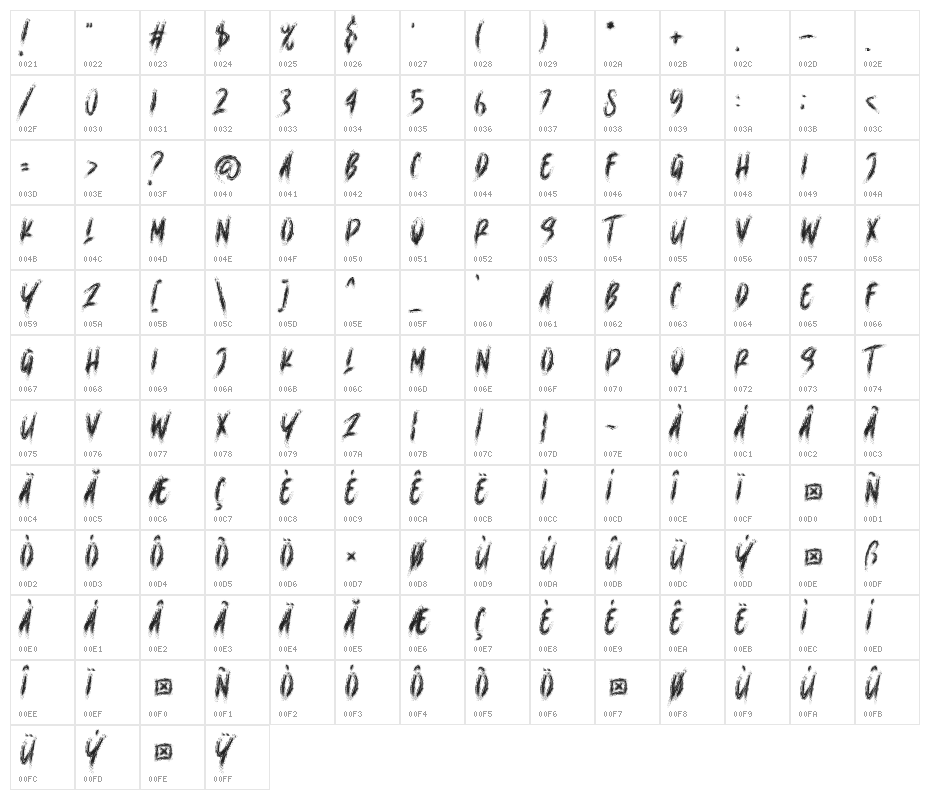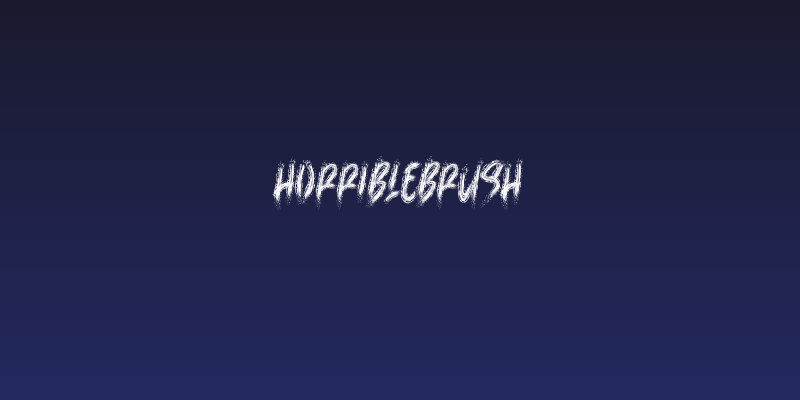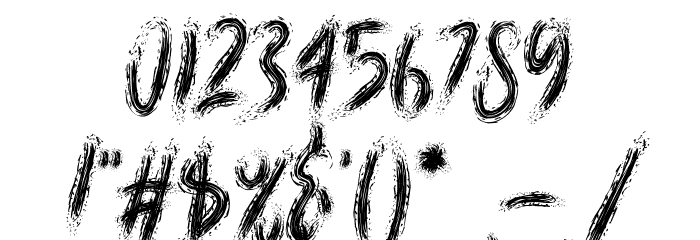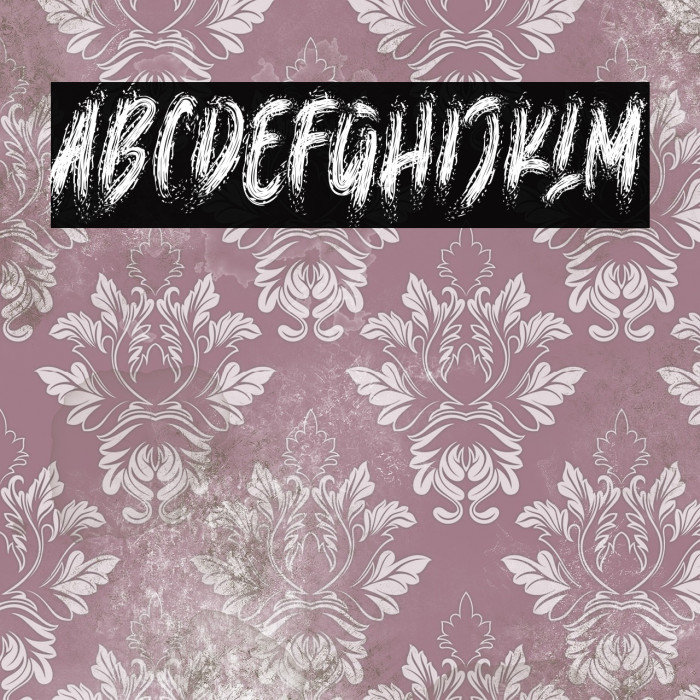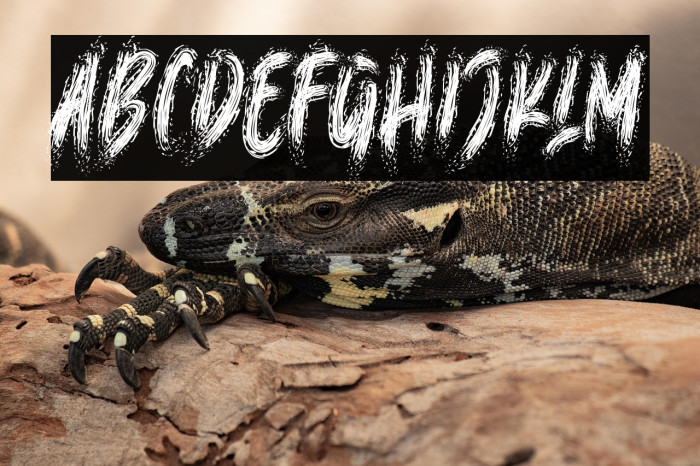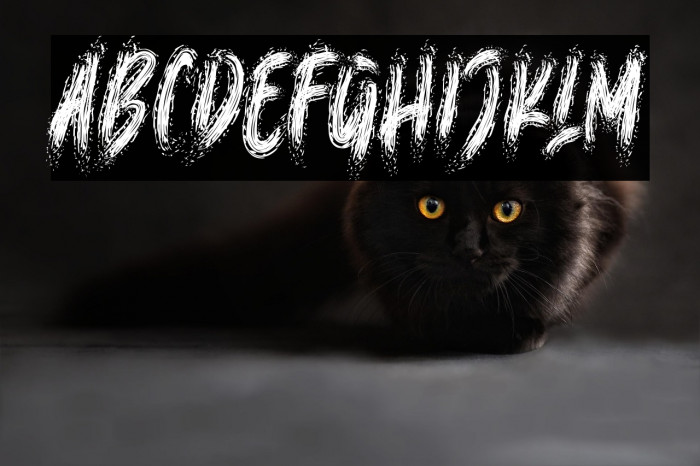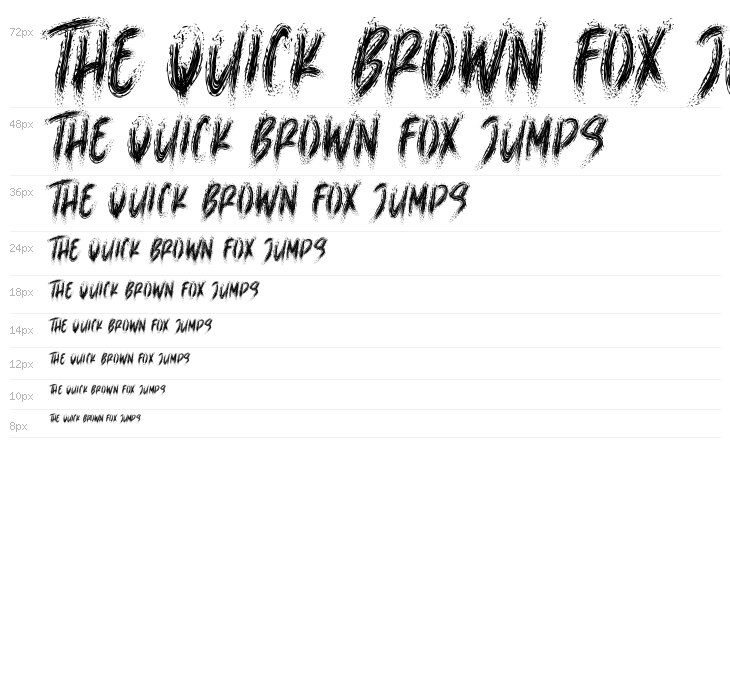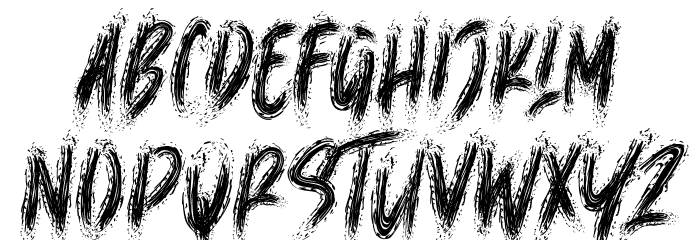
HorribleBrush Font
HorribleBrush Description
This font exudes a raw, energetic vibe with its brush-like strokes that appear hand-painted. The letters are bold and dynamic, with a rugged texture that gives them a distressed, grungy appearance. The uppercase and lowercase letters maintain a consistent style, characterized by uneven edges and a sense of movement. Numbers and special characters follow the same aesthetic, adding to the font's cohesive look. This font is ideal for projects that require a bold statement or an edgy, artistic touch.
| Proposed Projects | Perfect for album covers, posters, streetwear branding, or any project needing a bold, artistic flair. |